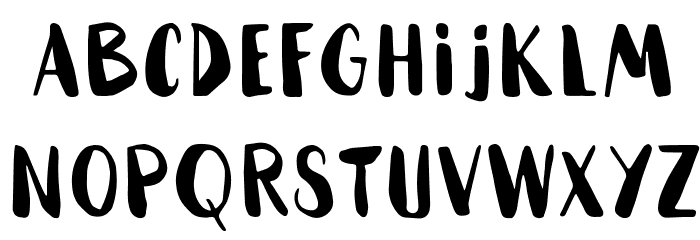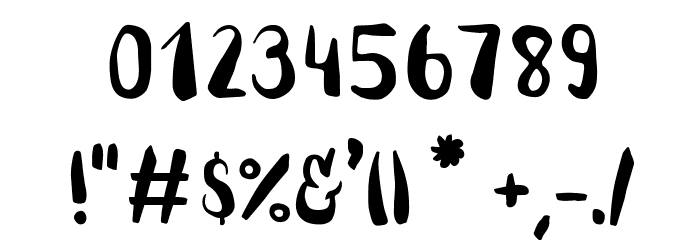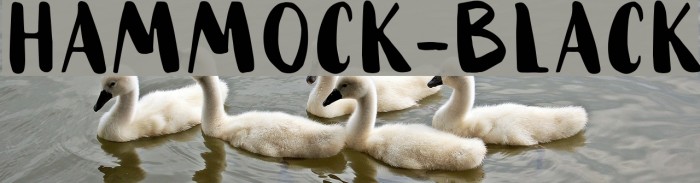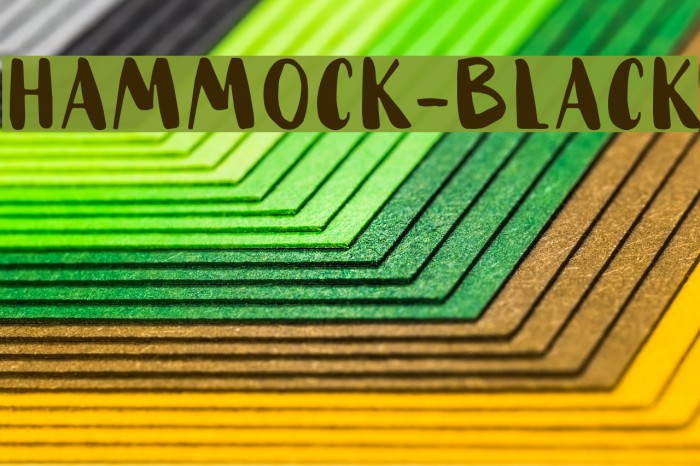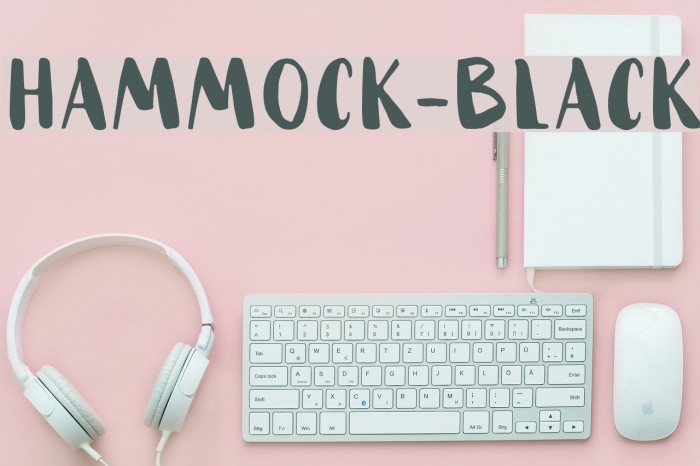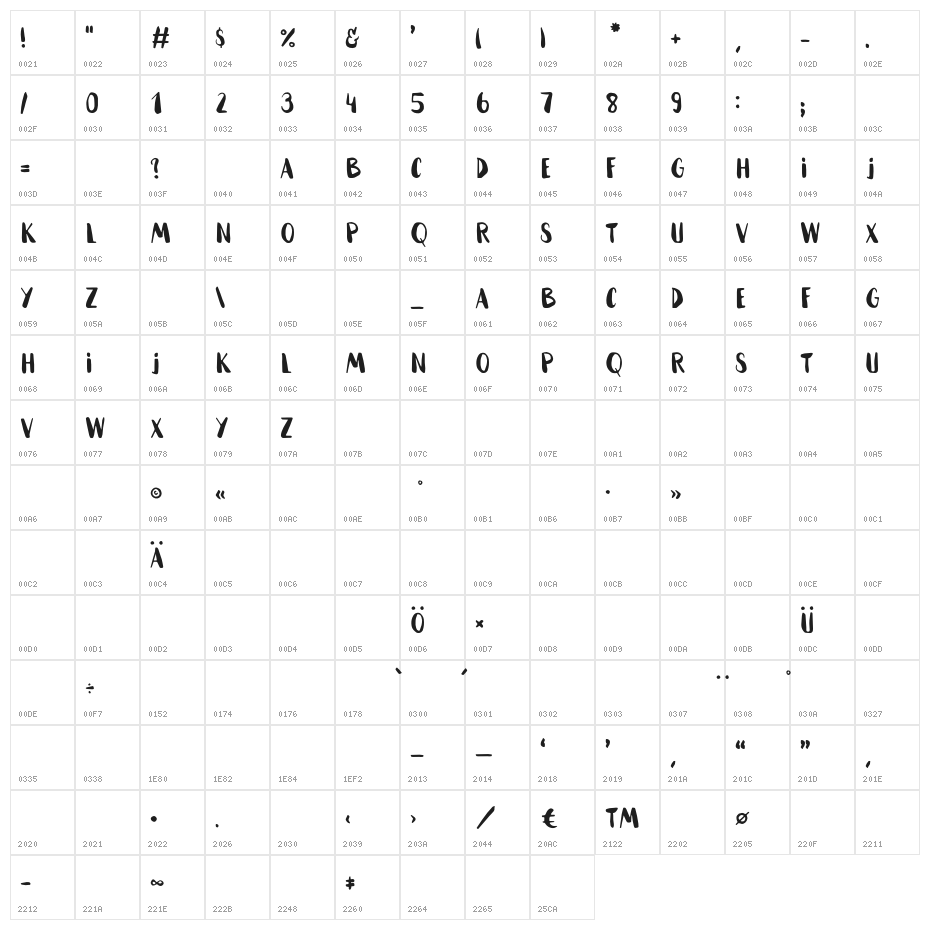
HAMMOCK-Black Font
This font features a bold and playful style with a hand-drawn appearance. The characters are slightly irregular, giving it a whimsical and informal feel. The strokes are thick and rounded, contributing to its boldness and making it highly legible. The uppercase and lowercase letters maintain a consistent style, with a slight slant that adds to the dynamic look. The numbers and special characters are designed to match the overall playful aesthetic, making it suitable for creative and casual projects.
A bold, playful, hand-drawn font with thick, rounded strokes.
- Proposed Projects: Ideal for children's books, playful branding, posters, and creative invitations.
- Overall Style: Playful